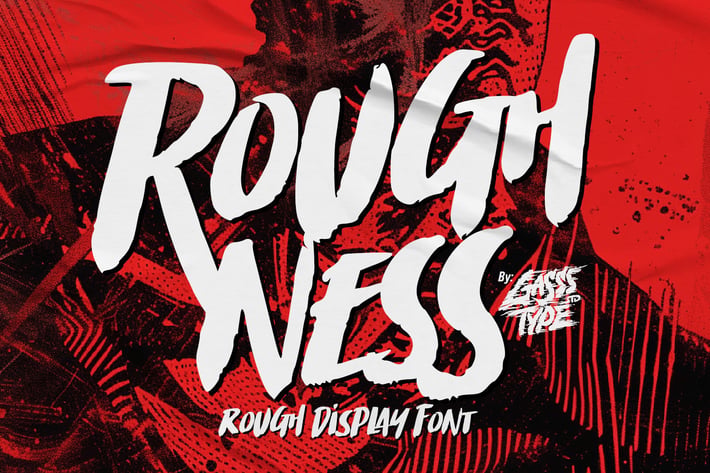
Roughness – Messy and Rough Font for Bold Designs
Perfect for creating gritty posters, edgy branding, and rebellious designs, Roughness channels a sense of chaotic energy with its messy strokes and bold, unrefined look. This font is ideal for projects that demand a touch of rebellious flair and an unapologetic attitude.